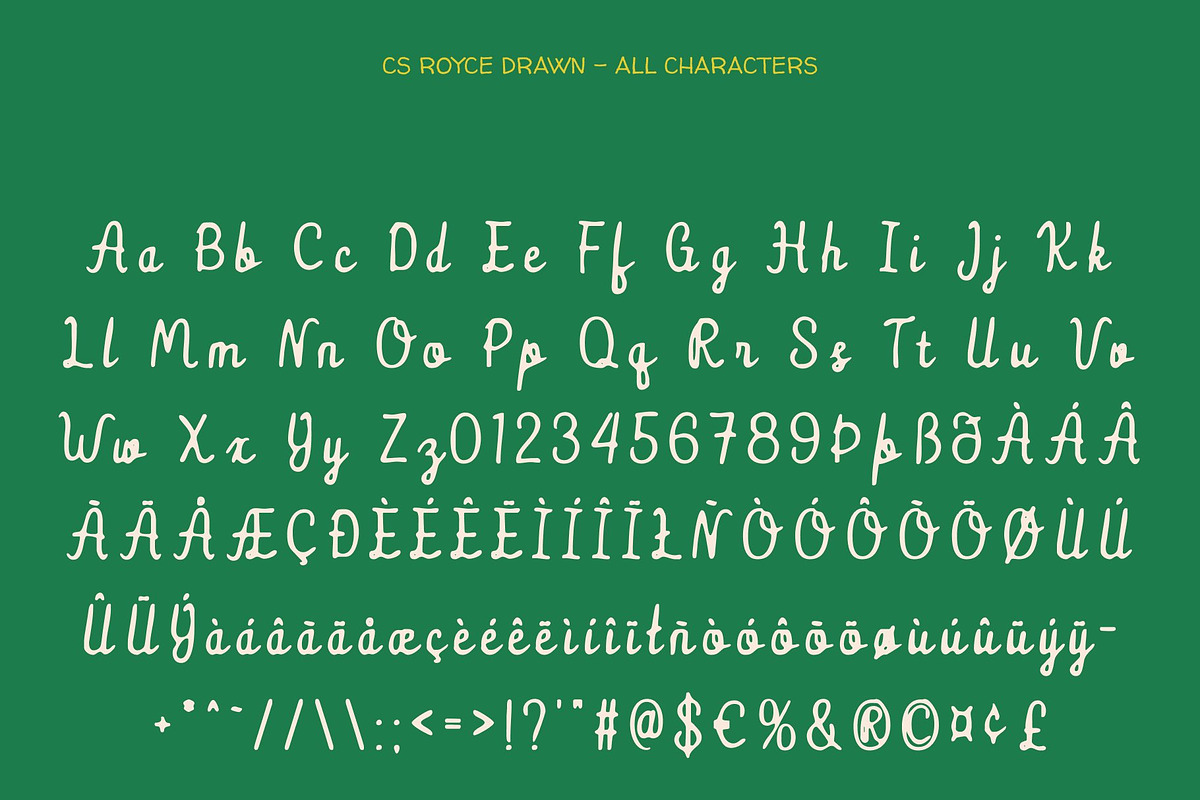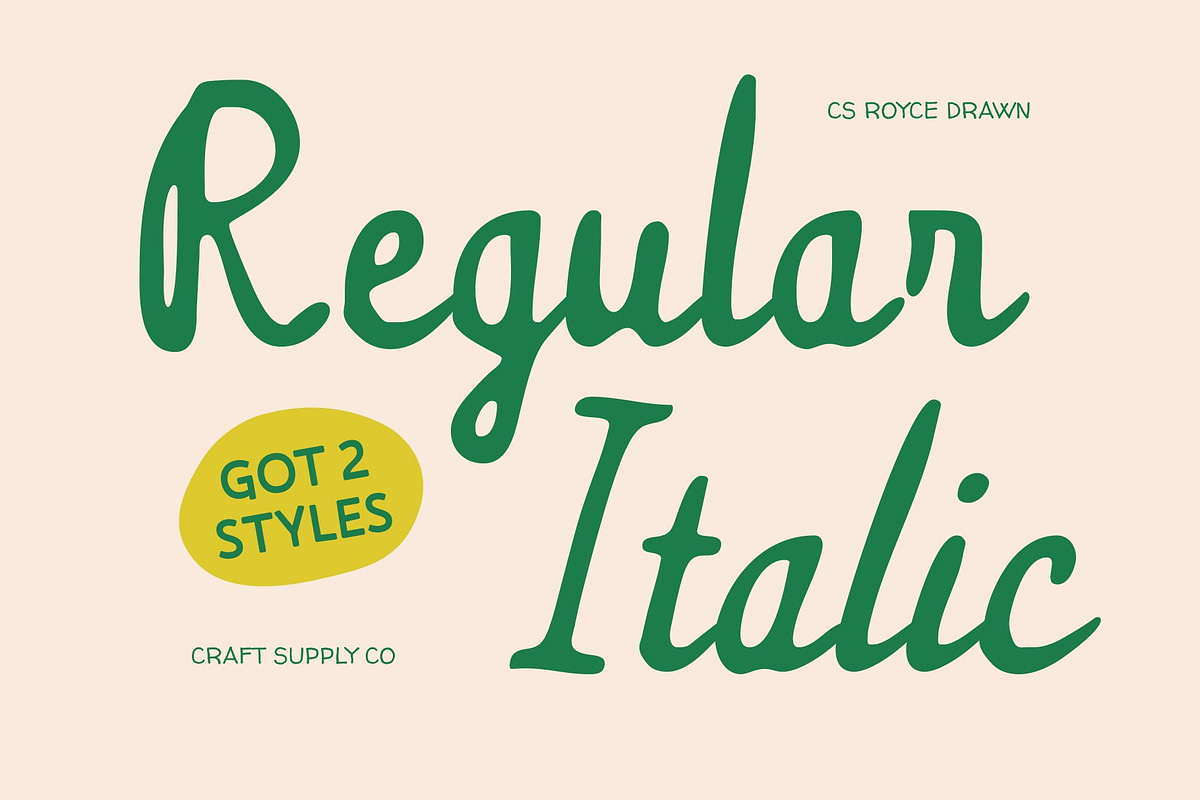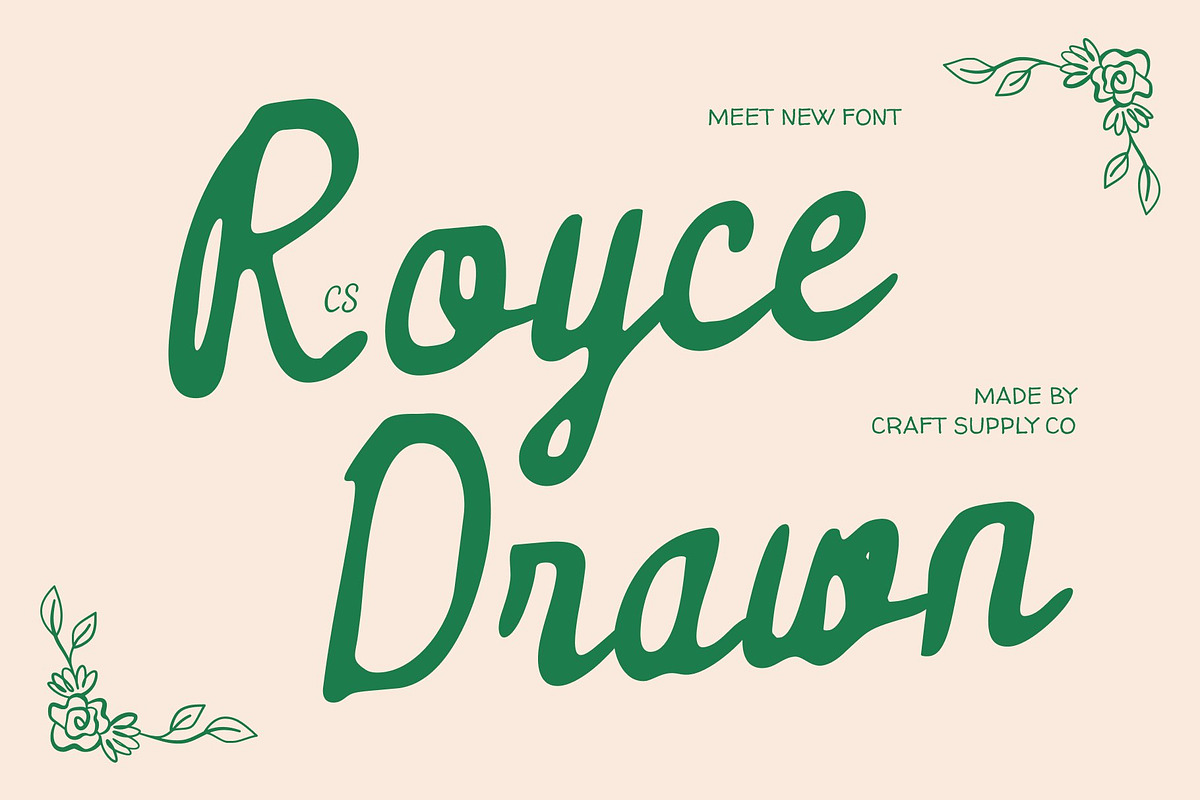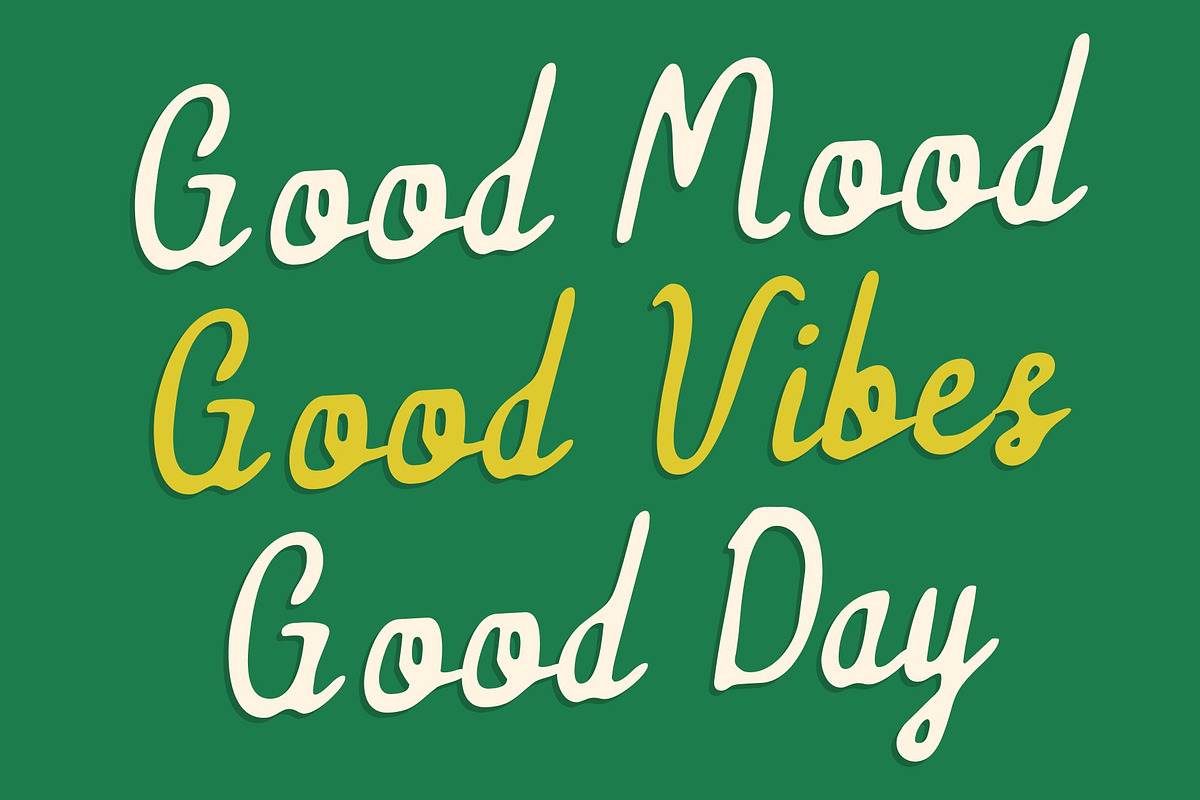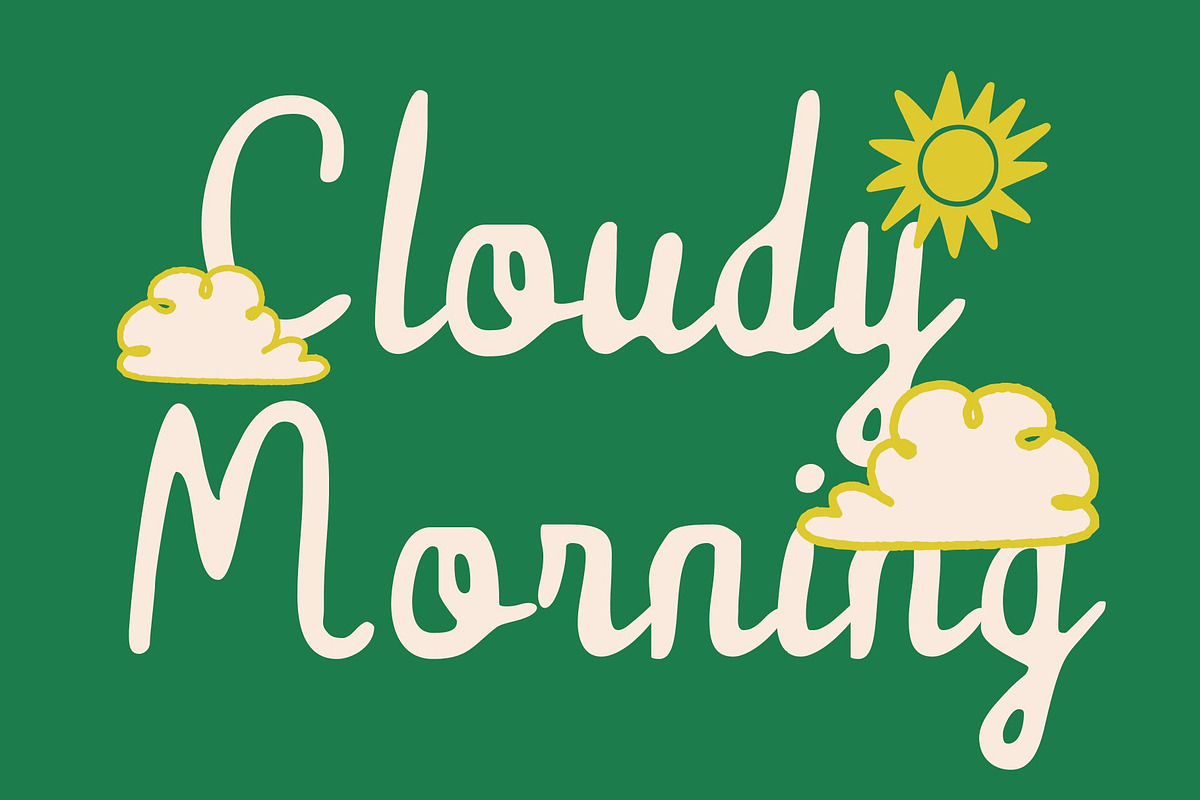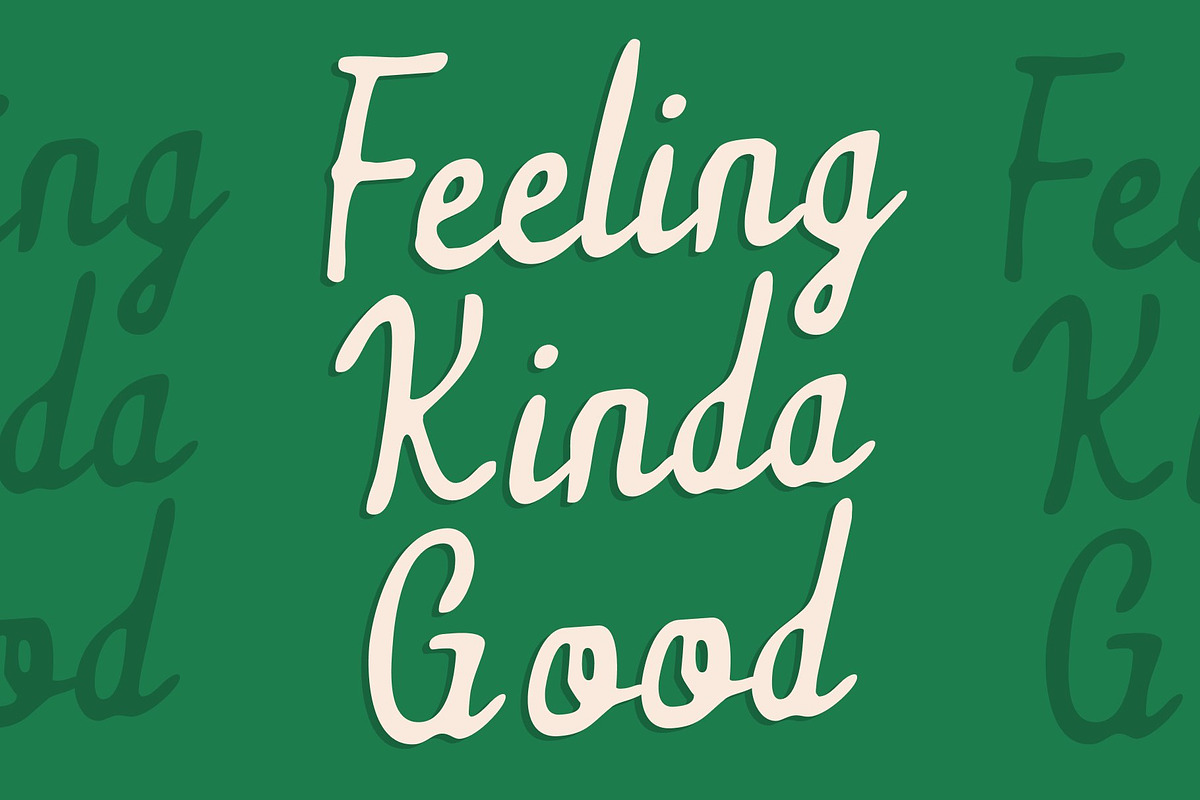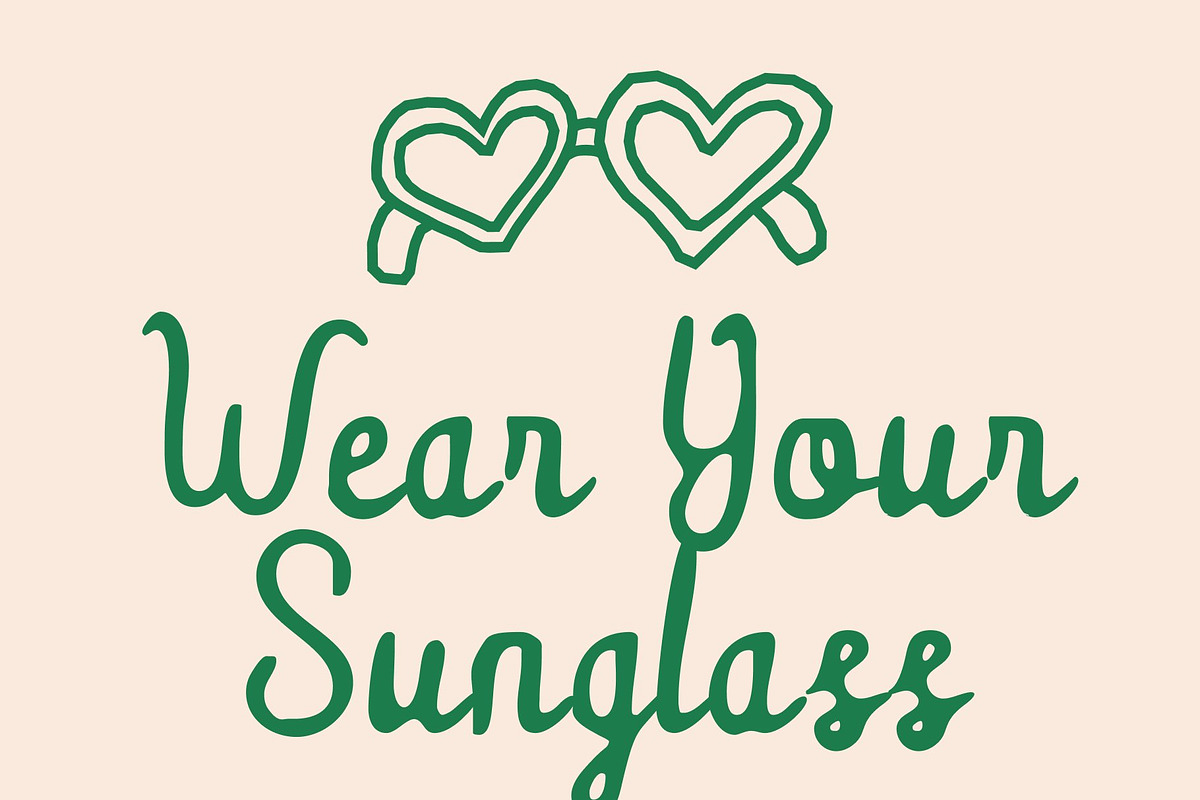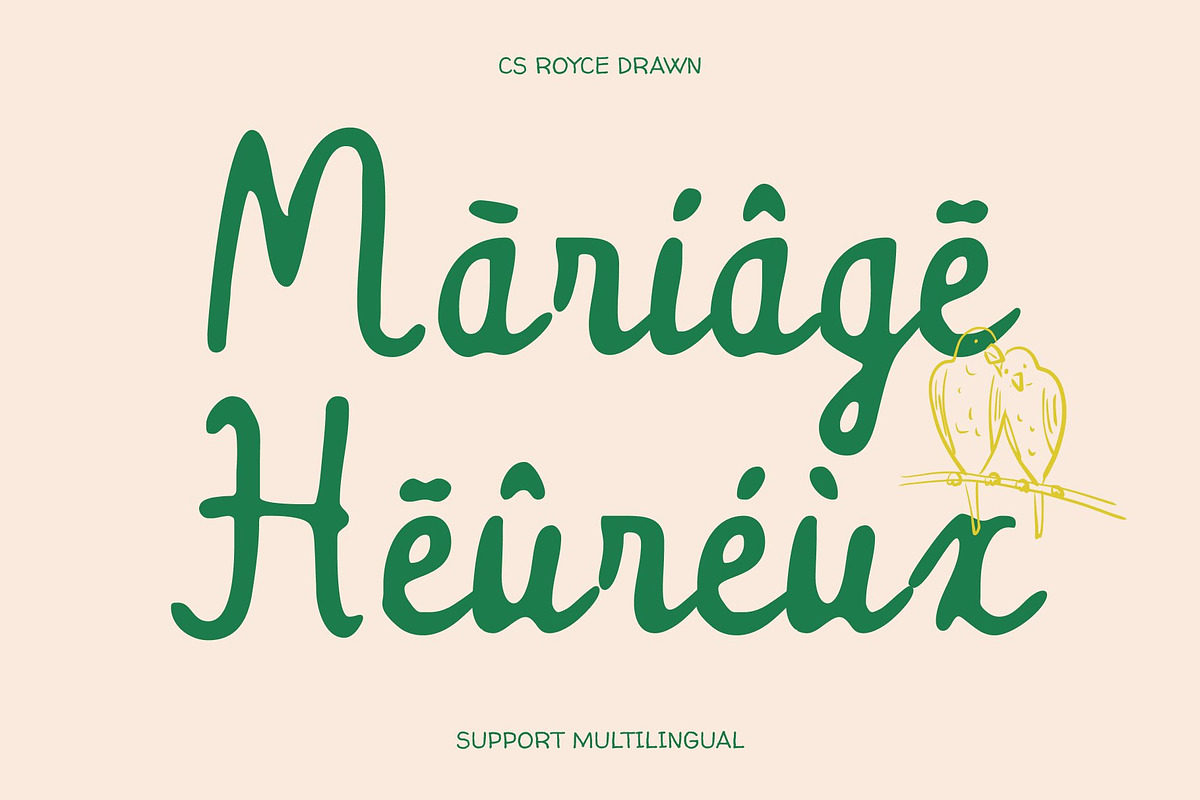
CS Royce Drawn
CS Royce Drawn – Elegant Script Font with Natural Handcrafted Grace
Graceful, Modern, and Refined Expression This is a modern script font that blends clean contemporary design with flowing handwritten elegance, enhanced by a subtle drawn texture. Its smooth, balanced strokes create a natural writing rhythm, while the hand-drawn effect adds warmth and authenticity. The result is a script that feels refined yet personal, elegant without appearing rigid.
Smooth Curves with a Soft, Feminine Touch Each letter is shaped with gentle curves and fluid connections that express grace, intimacy, and beauty. The drawn details introduce slight organic variations, giving every character a unique personality. This natural texture enhances the handwritten feel while preserving clarity and sophistication, making the font visually expressive and emotionally engaging.
Perfect for Stylish Branding and Romantic Designs This font excels in projects that require a classy and feminine tone. It’s ideal for wedding invitations, beauty and fashion branding, luxury packaging, lifestyle editorials, and personal logos. Whether used for headlines or refined accents, it elevates designs with charm, elegance, and a handcrafted signature.
Timeless Script with a Contemporary Feel More than a script font, this font is a statement of softness, style, and refinement. Its combination of modern clarity and natural hand-drawn character makes it a versatile choice for designers seeking elegant typography with a warm, distinctive, and unforgettable presence.
- CS Royce Drawn Regular
- CS Royce Drawn Italic